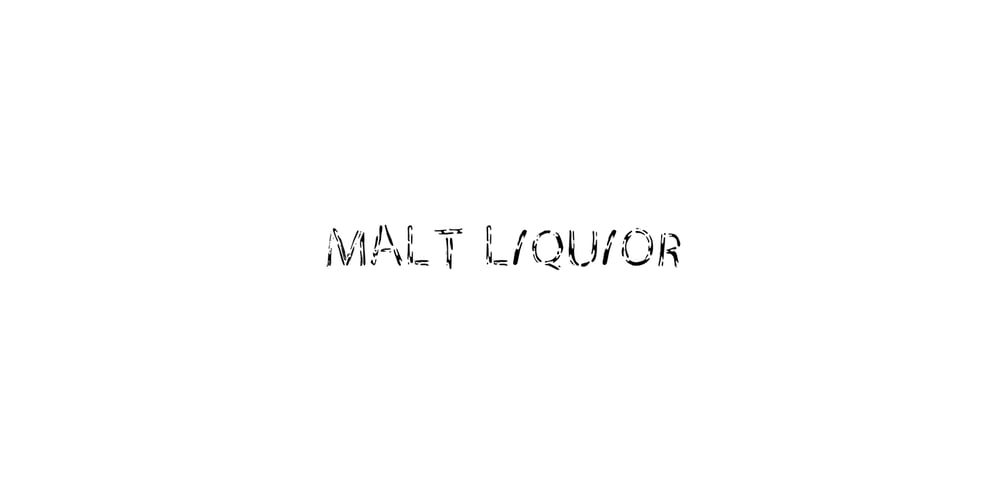
Malt liquior Font Family was designed by Jeremy Gill-Praba and published by Jointype. Malt liquior contains 1 styles and family package options. This font is based on the printed effect of letter press.malt liquid and texturised stamps. It is a humanistic approach to design and is symbolic to the flow of fluid.